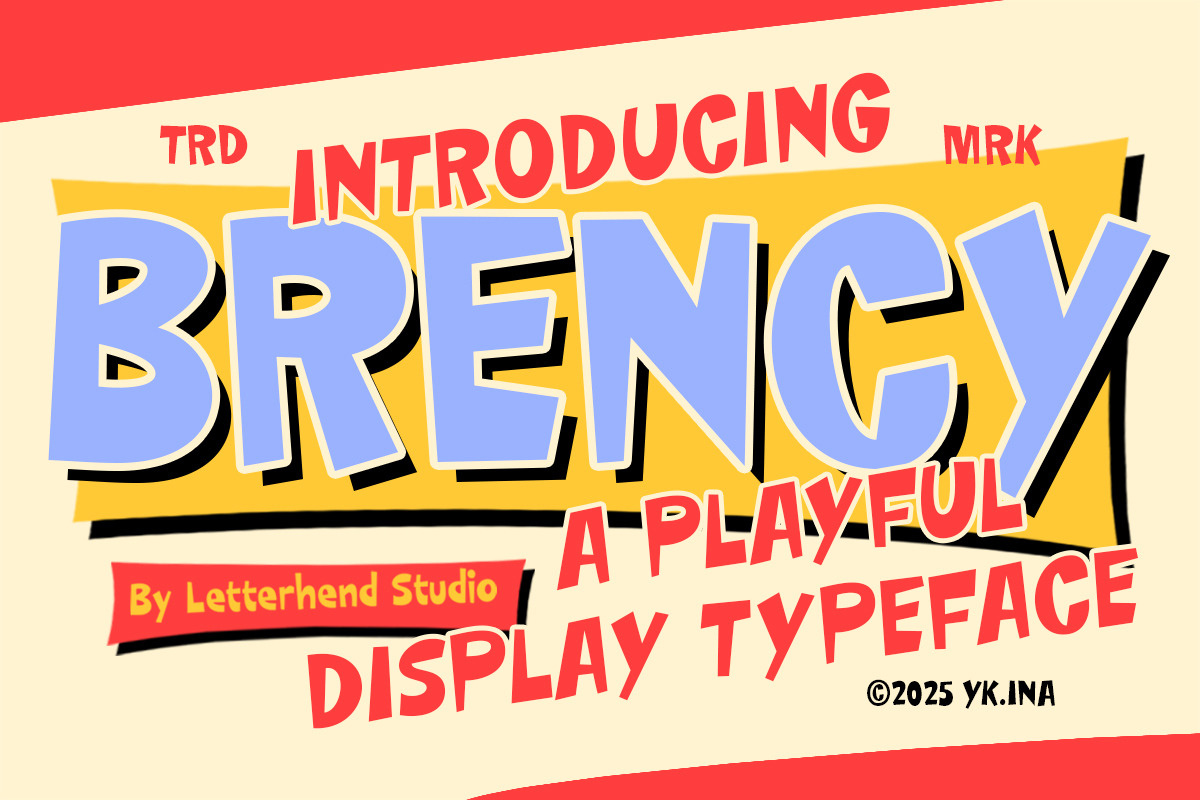
Brency Playful Display Font
Brency bursts with lively cartoon energy, featuring chunky letterforms, bold outlines, and a bouncy hand-drawn rhythm that feels straight out of a retro comic panel. Its exaggerated shapes and colorful, animated spirit make every word pop with joy and personality.